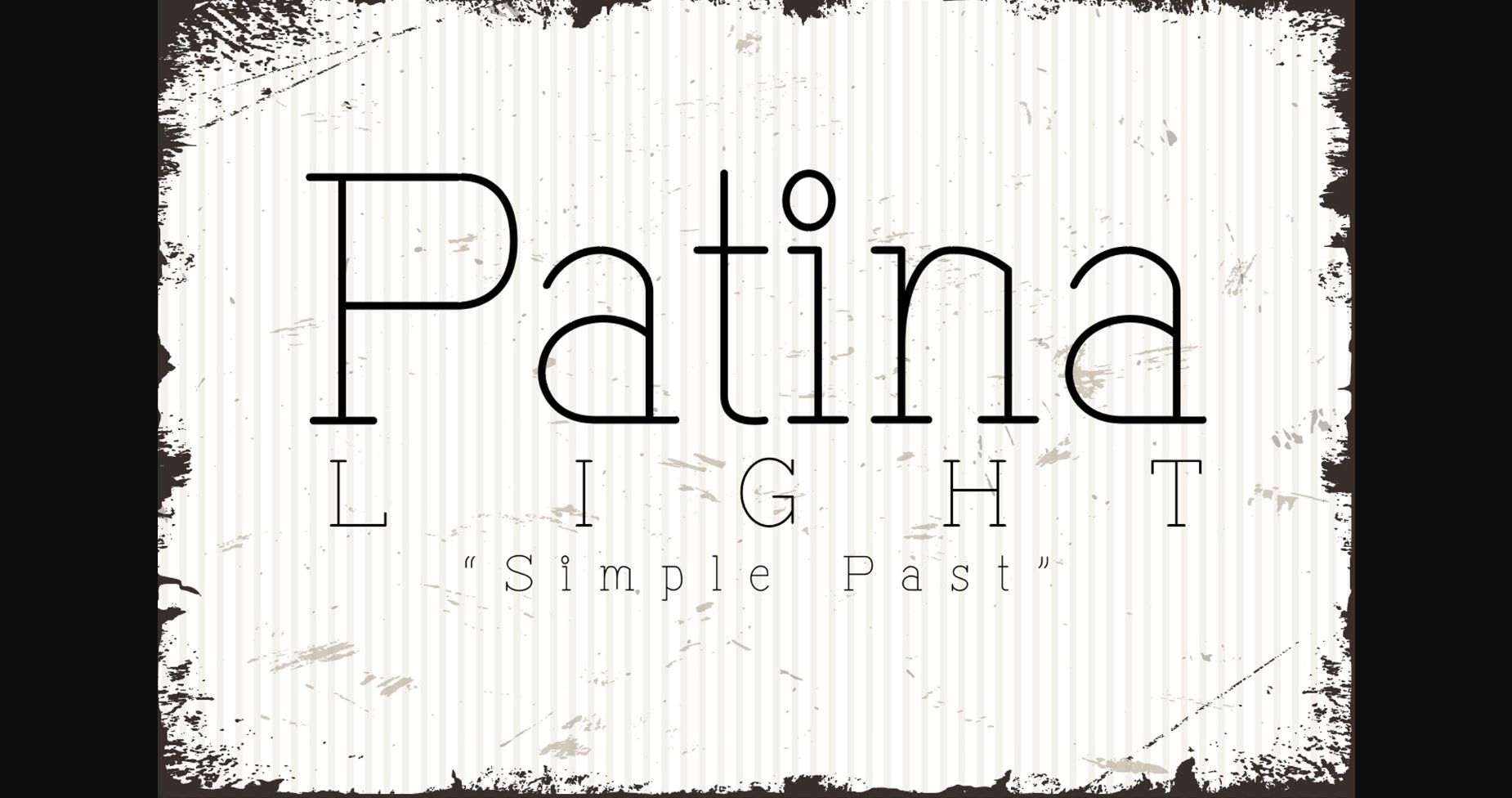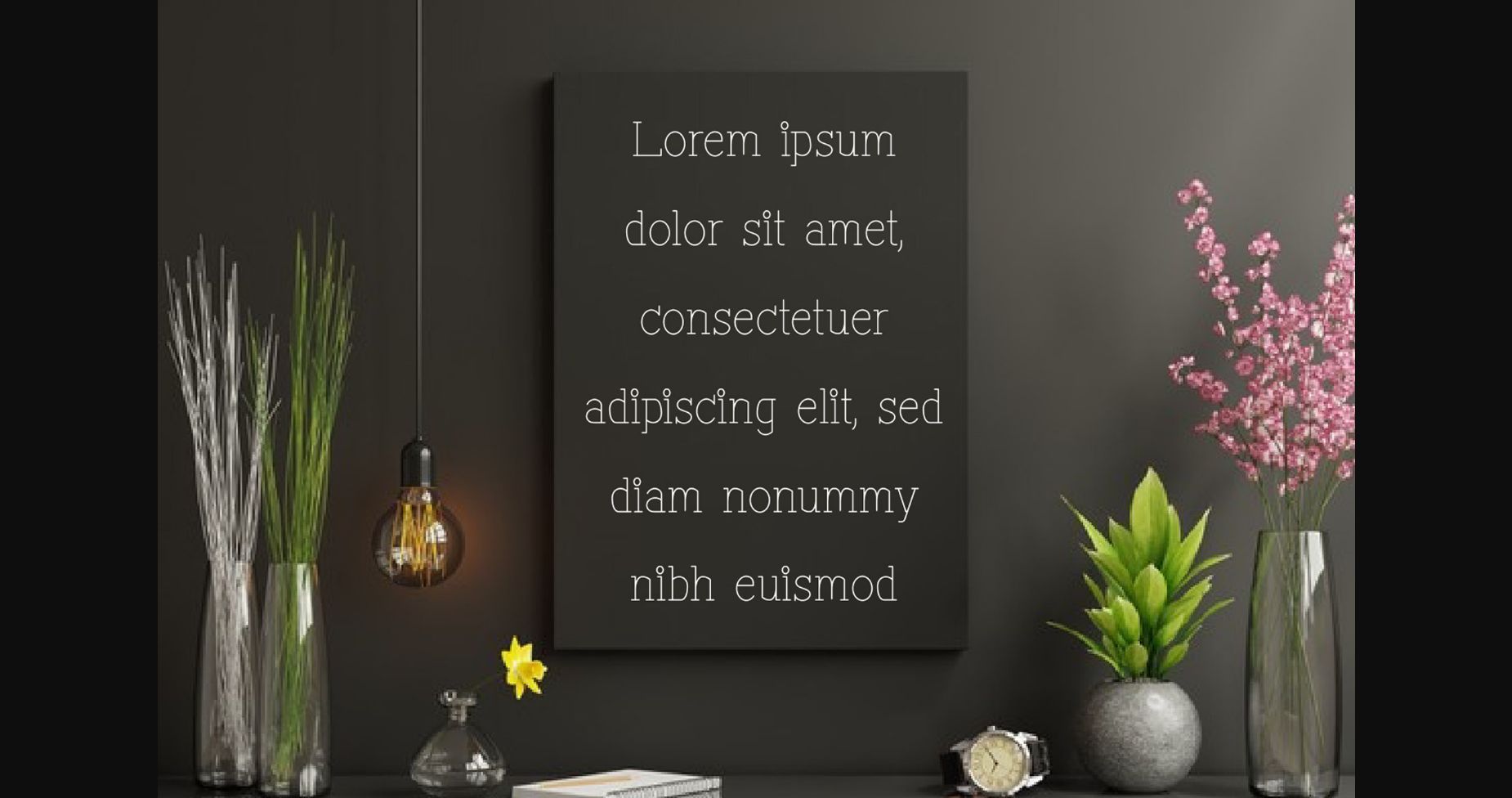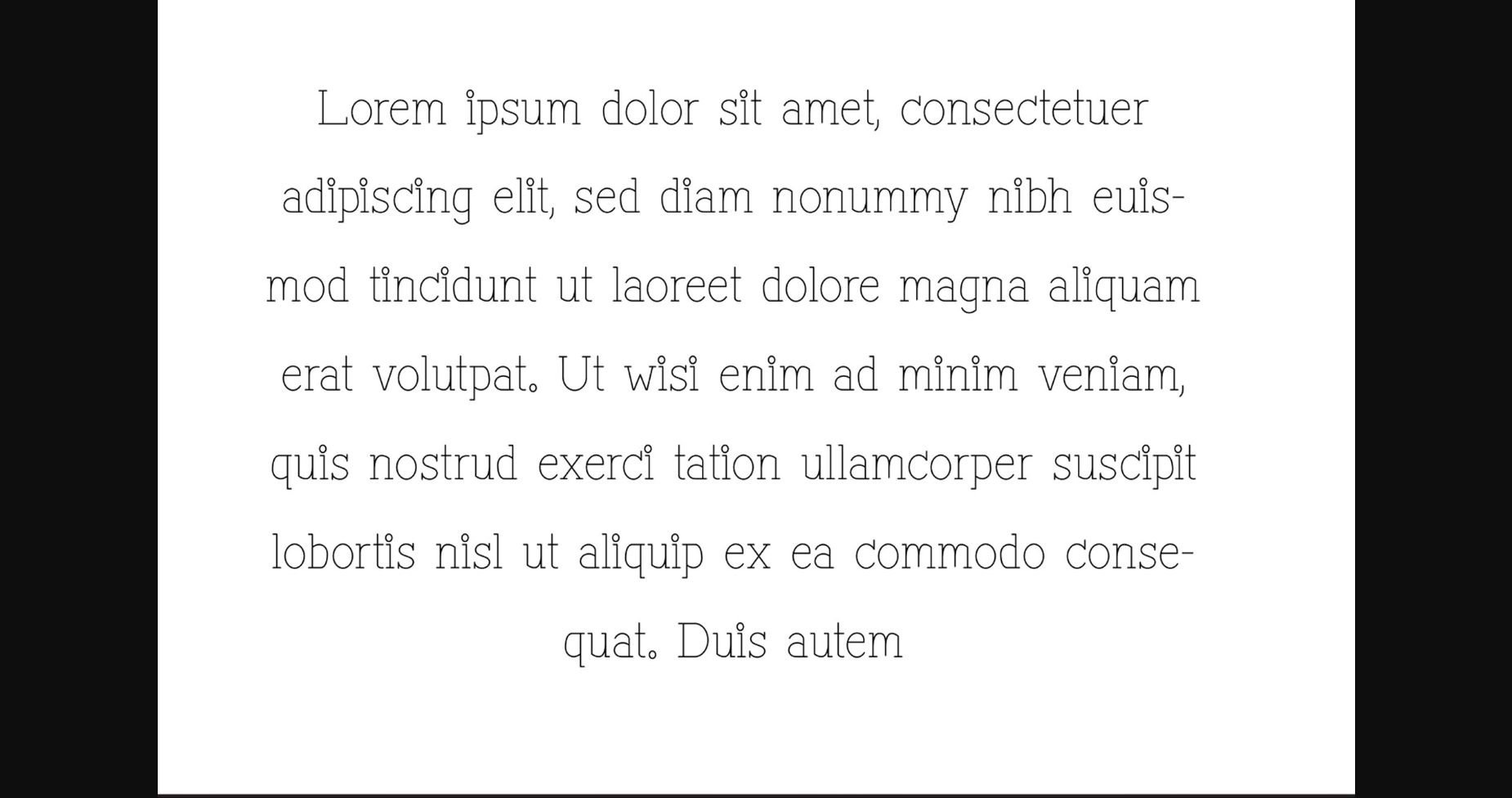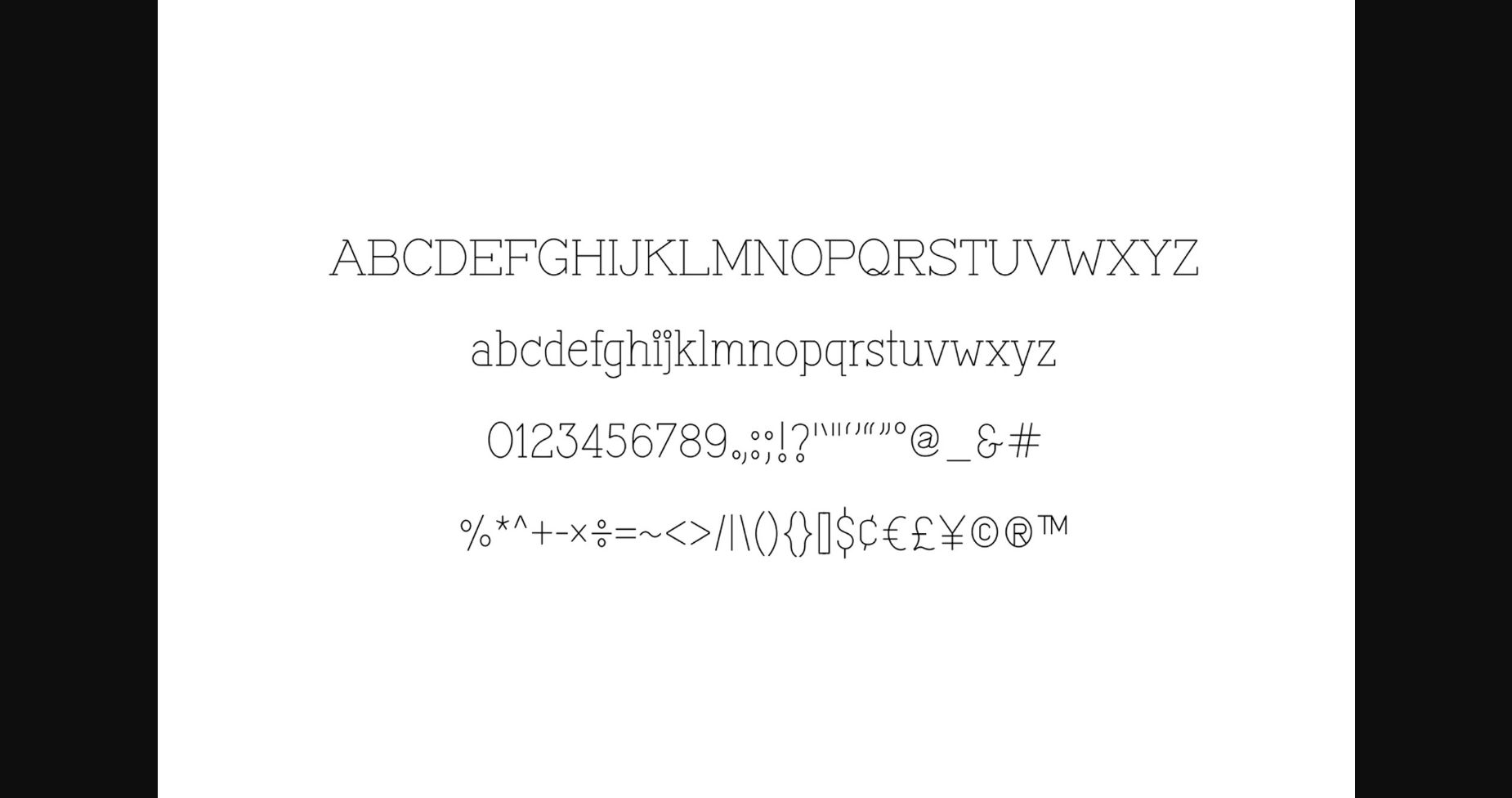
Patina Light Font
About Patina Light Font
Patina Light is a clean and simple sans serif font. It is ideal for writing web designs, business cards, or pretty much anything else that requires a cool touch.